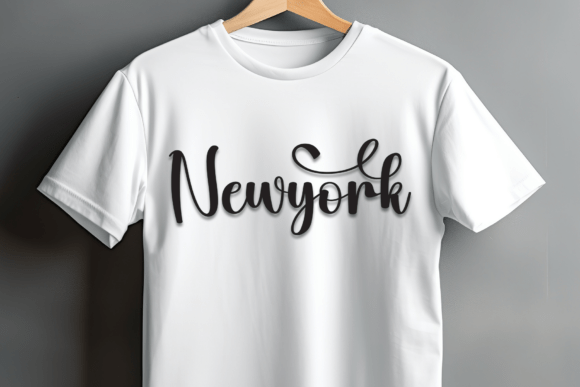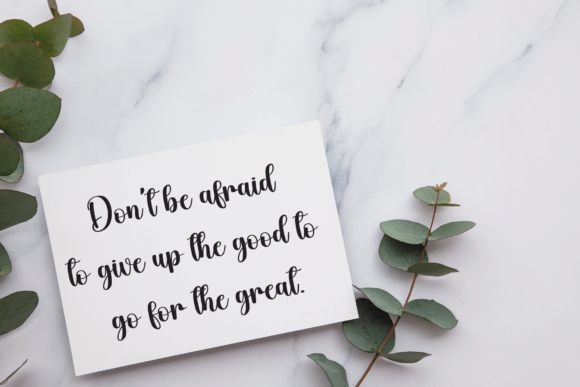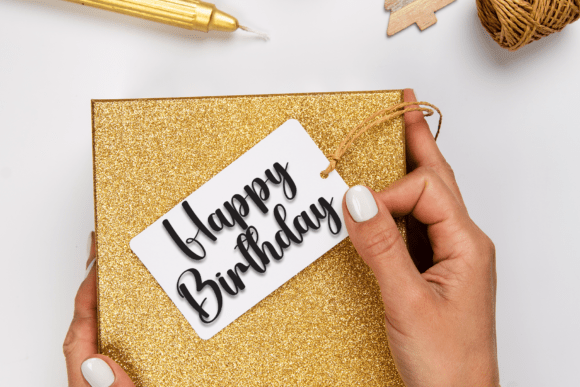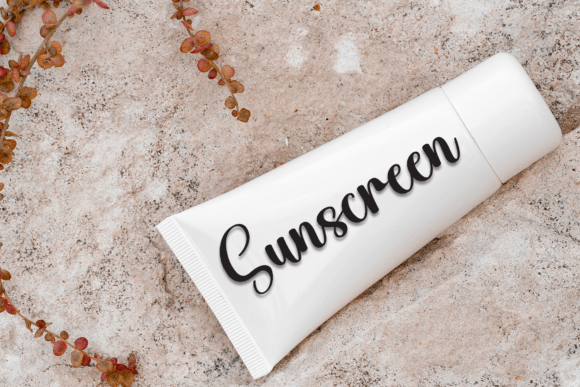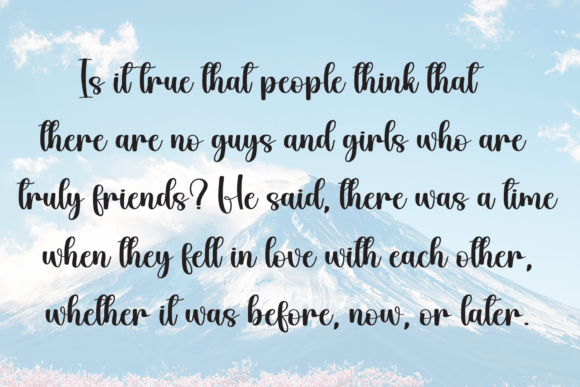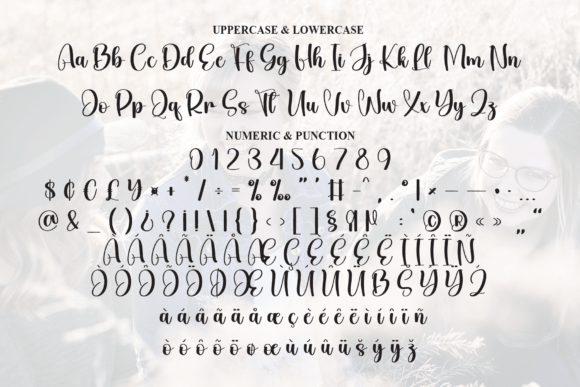
Introducing Friendly Font: The Elegant Handwritten Script Font for Creative Projects
In the world of typography, a font can make or break a design. When it comes to creating a lasting impression, the right font can elevate your project from ordinary to extraordinary. This is where Friendly Font comes in – a stylish handwritten script font that exudes elegance, fluidity, and sophistication. In this article, we’ll dive into the world of Friendly Font, exploring its features, benefits, and uses, making it the perfect resource for designers, crafters, and anyone looking to add a personal touch to their creative projects.
The Characteristics of Friendly Font
Friendly Font is a beautifully crafted handwritten script font that boasts smooth, flowing strokes, creating a natural and refined feel. Its elegant curves and fluid connections make it perfect for a wide range of applications, from branding and invitations to creative projects and digital media. With a graceful balance of charm and modernity, Friendly Font adds a personal, artistic touch to any design, making it stand out from the crowd.
What Makes Friendly Font So Special?
So, what sets Friendly Font apart from other fonts? Here are a few key features that make it a standout:
- Elegant and Fluid Strokes: Friendly Font’s smooth, flowing strokes create a natural and sophisticated feel, perfect for designs that require a touch of elegance.
- Handwritten with Love: This font is carefully crafted to mimic the imperfections and uniqueness of handwritten script, adding a personal touch to any design.
- Versatile and Adaptable: Friendly Font is suitable for a wide range of applications, from digital media to print materials, making it a versatile addition to any designer’s toolkit.
- Easy to Read: Despite its elegant and cursive nature, Friendly Font remains highly legible, making it perfect for body text and longer forms of content.
Uses for Friendly Font
Friendly Font’s versatility and elegance make it suitable for a wide range of projects, including:
- Branding and Logos: Add a touch of sophistication and elegance to your brand identity with Friendly Font.
- Invitations and Stationery: Create beautiful, eye-catching invitations and stationery that exude warmth and personality.
- Digital Media: Use Friendly Font in digital media, such as social media graphics, blog posts, and website headers, to add a personal touch.
- Crafting and DIY Projects: Add a touch of handmade charm to your crafting and DIY projects, such as papercrafts, scrapbooking, and card making.
Tips for Using Friendly Font Effectively
To get the most out of Friendly Font, here are a few tips to keep in mind:
- Pair with Contrasting Fonts: Pair Friendly Font with contrasting fonts to create visual interest and hierarchy in your design.
- Experiment with Colors: Friendly Font looks stunning in a range of colors, so don’t be afraid to experiment and find the perfect hue for your design.
- Use for Headings and Titles: Friendly Font is perfect for headings and titles, adding a touch of elegance and sophistication to your design.
In conclusion, Friendly Font is a beautiful, elegant handwritten script font that radiates sophistication and fluidity. Its smooth, flowing strokes and natural feel make it perfect for a wide range of creative projects, from branding and invitations to digital media and crafting. With its versatility, legibility, and charm, Friendly Font is sure to become a favorite among designers, crafters, and anyone looking to add a personal touch to their designs.